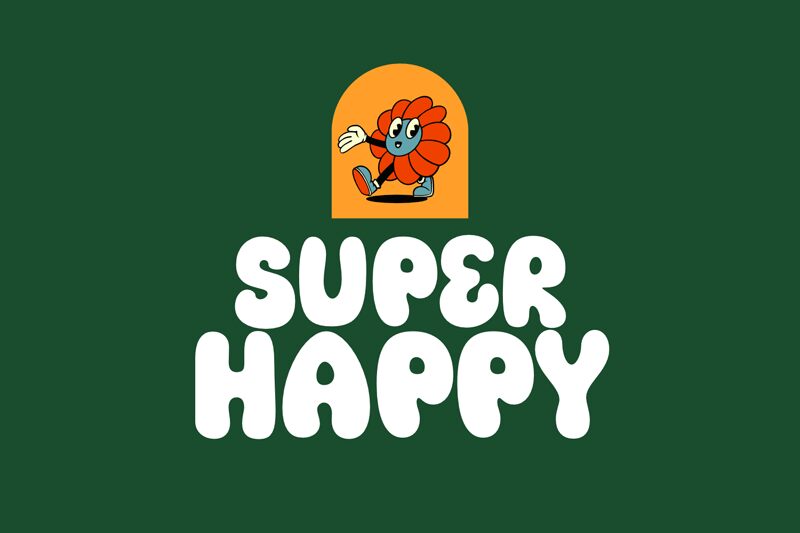
Super Happy
Super Happy is a font that bursts with sunshine and sparkles with delight. Boasting playful, round curves and a bubbly personality, this exuberant typeface is guaranteed to bring a smile to your face.
Radiating with energy and warmth, Super Happy's bold and expressive letters are perfectly suited for a variety of vibrant design applications, from children's storybooks and party invitations to eye-catching logos and promotional materials. With its whimsical charm and captivating aesthetic, this font effortlessly elevates any project, infusing it with a sense of joy and playfulness that is sure to delight and engage viewers.
Whether you're looking to create a cheerful, lighthearted atmosphere or add a touch of whimsy to your designs, Super Happy is the perfect font to bring your creative vision to life.
Introducing Super Happy: A Font Overflowing with Joy!